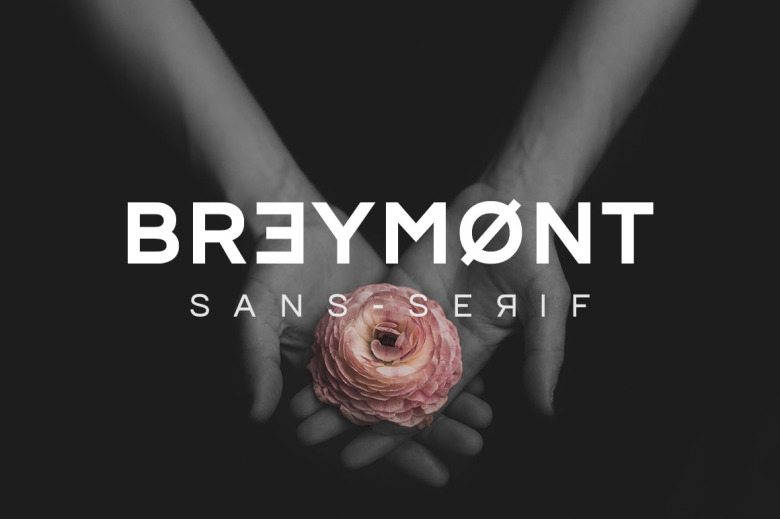
Breymont Font
Breymont is the new modern all caps sans serif typeface that always feels right under any circumstances. The dimensions of the letters and the general sense are modern and contemporary but also retain the refined functional touch of the rational structure.
The result is a unique and unorthodox sans typeface that is perfectly suited for graphic design application ranging from editorial and corporate design to web and interaction design.
Breymont Sans Serif Font